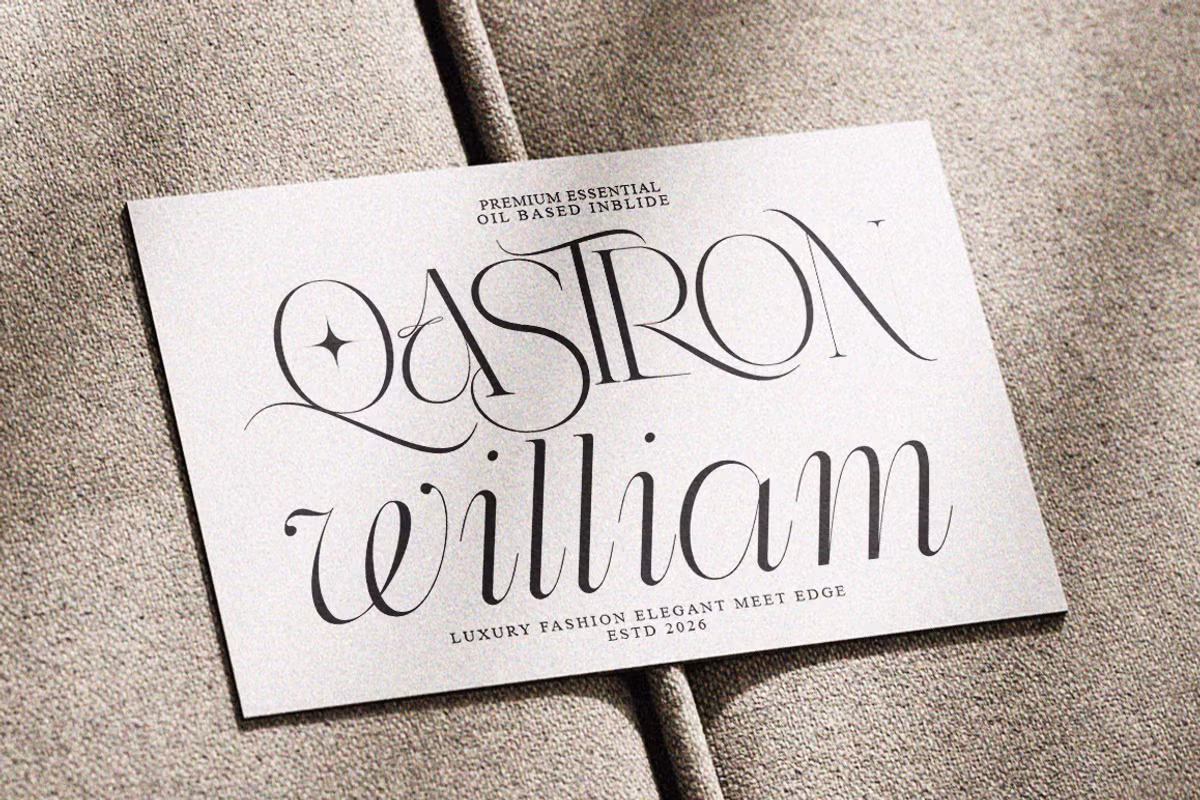
Ethiven Qastron: Premium Modern Serif Font Family with 10 Styles
Meet the Ethiven Qastron, a high-end serif font that’s all about style and flexibility. It comes in 10 different styles, making it a great choice for adding a touch of luxury to your designs. Whether you’re working on a brand, a magazine, or packaging, Ethiven Qastron is the perfect pick for anyone looking for a classy serif font. Its modern look and feel make it perfect for display purposes, and its versatility means you can use it for a wide range of projects. With its elegant design, Ethiven Qastron is sure to give your work a sophisticated edge.
Design Style and Features
The Ethiven Qastron font has a really nice look to it, with subtle differences between the thick and thin parts of the letters, and curves that flow smoothly. This gives it a high-class feel that’s perfect for fancy writing. The designers took old-school serif ideas and updated them for modern times, so it works well for lots of different uses. Whether you’re printing something out or putting it online, the clean lines and precise shapes of Ethiven Qastron make it stand out in a good way.
Font Styles Included
Ethiven Qastron includes a comprehensive set of 10 stylish font styles:
- Regular
- Italic
- Scale Italic
- Scale Regular
- Condensed
- Expanded
- Condensed Italic
- Expanded Italic
- Black
- Black Italic
This range of styles provides designers with the flexibility to choose the perfect variation for their specific project needs, ensuring that Ethiven Qastron can adapt to any creative vision.
Character Sets and Multilingual Support
What makes Ethiven Qastron really special is the huge range of characters it offers. You get both big and small letters, plus a bunch of unique symbols and characters. And the best part? It’s made to work with lots of different languages, so you can use it to create designs that people all around the world can understand. This means you can share your ideas with a global audience, without worrying about language barriers. With Ethiven Qastron, you’ve got the power to communicate with people from different cultures and backgrounds, all through the power of typography. Whether you’re working on a project that needs to appeal to a local crowd or a worldwide one, this font family has got you covered.
Creative Applications
With its elegant design and versatile styles, Ethiven Qastron is perfect for a myriad of creative applications:
- Branding & Logo Design: Use Ethiven Qastron to create memorable brand identities that convey sophistication.
- Editorial & Magazine Typography: The font’s luxurious aesthetic makes it an ideal choice for magazine covers and layouts.
- Fashion & Luxury Typography: Elevate fashion show materials with this premium serif font that speaks to high-end clientele.
- Packaging: Ethiven Qastron can enhance product packaging, making it eye-catching and elegant.
- Web & Social Media: Utilize this font for websites, social media posts, and digital marketing campaigns to attract attention.
When you’re trying to find the perfect fonts to go together, Ethiven Qastron is a great choice because it can be used in so many different ways. Here are a few ideas to make your designs look even better:
- Sans Serif Fonts: Pair Ethiven Qastron with modern sans serif fonts such as Montserrat or Open Sans for a contemporary look.
- Script Fonts: Combine with elegant script fonts like Great Vibes or Pacifico to add a touch of sophistication.
- For a timeless feel, try combining it with other serif fonts like Playfair Display or Lora to create a consistent look.
These combinations won’t just look good together, they’ll also make your projects look even better overall.
The Ethiven Qastron font is really special – it’s not just a font, it’s a way to make your designs look high-end and fancy. If you’re a designer, you’ll love that it comes in lots of different styles and can be used in many languages. The design is also super elegant, which makes it perfect for things like branding, making magazines or books look nice, and any other project where you want to use a fancy serif font. So, don’t miss out on the chance to add this amazing modern serif font to your collection – it will definitely take your designs to the next level. With its luxurious feel and sophisticated look, Ethiven Qastron is a great choice for anyone who wants to make a statement with their typography. Whether you’re working on a big project or just want to add some extra flair to your work, this font family is definitely worth checking out.